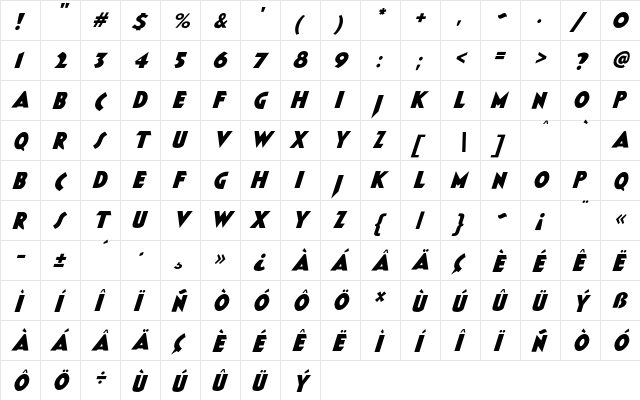
JMH ROCAMBOLE Extrabold Italic
| Style | Extrabold Italic |
Design Context for JMH ROCAMBOLE Typeface
JMH ROCAMBOLE is a composed and adaptable typeface that performs quietly and consistently across a wide range of design contexts. Its italic angle brings a sense of urgency and motion to the letterforms. The heavy weight commands attention and anchors typographic hierarchies.